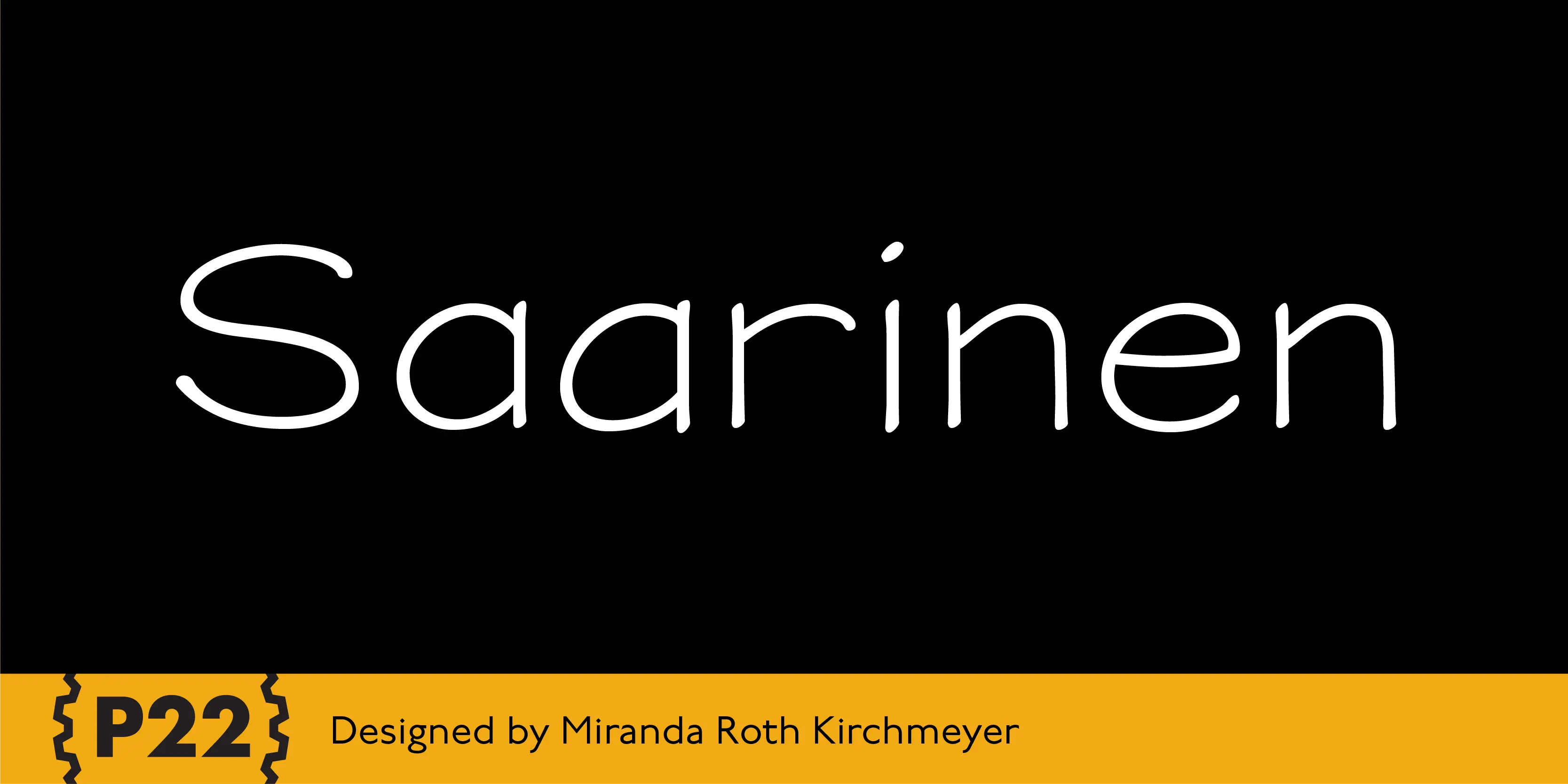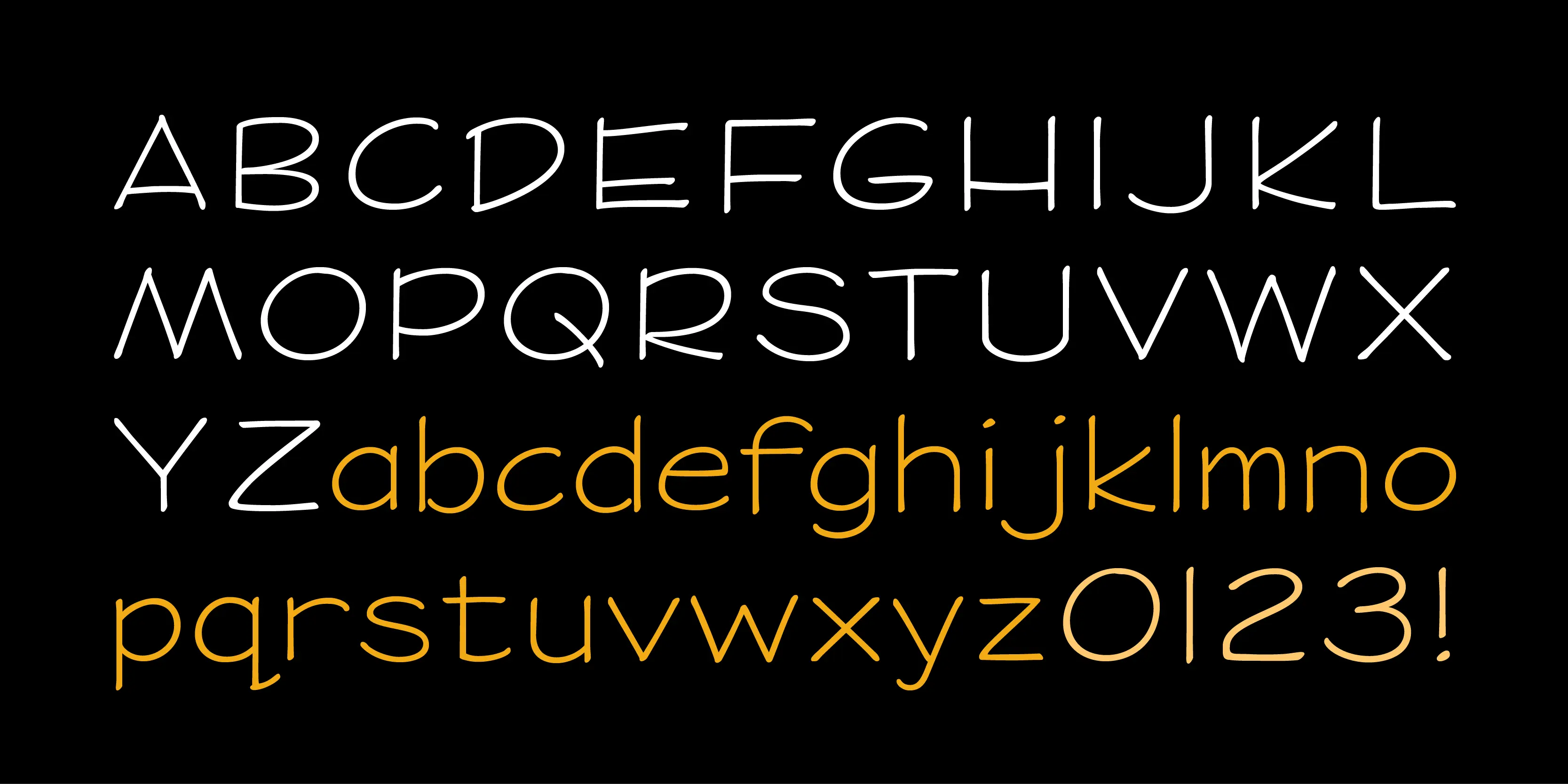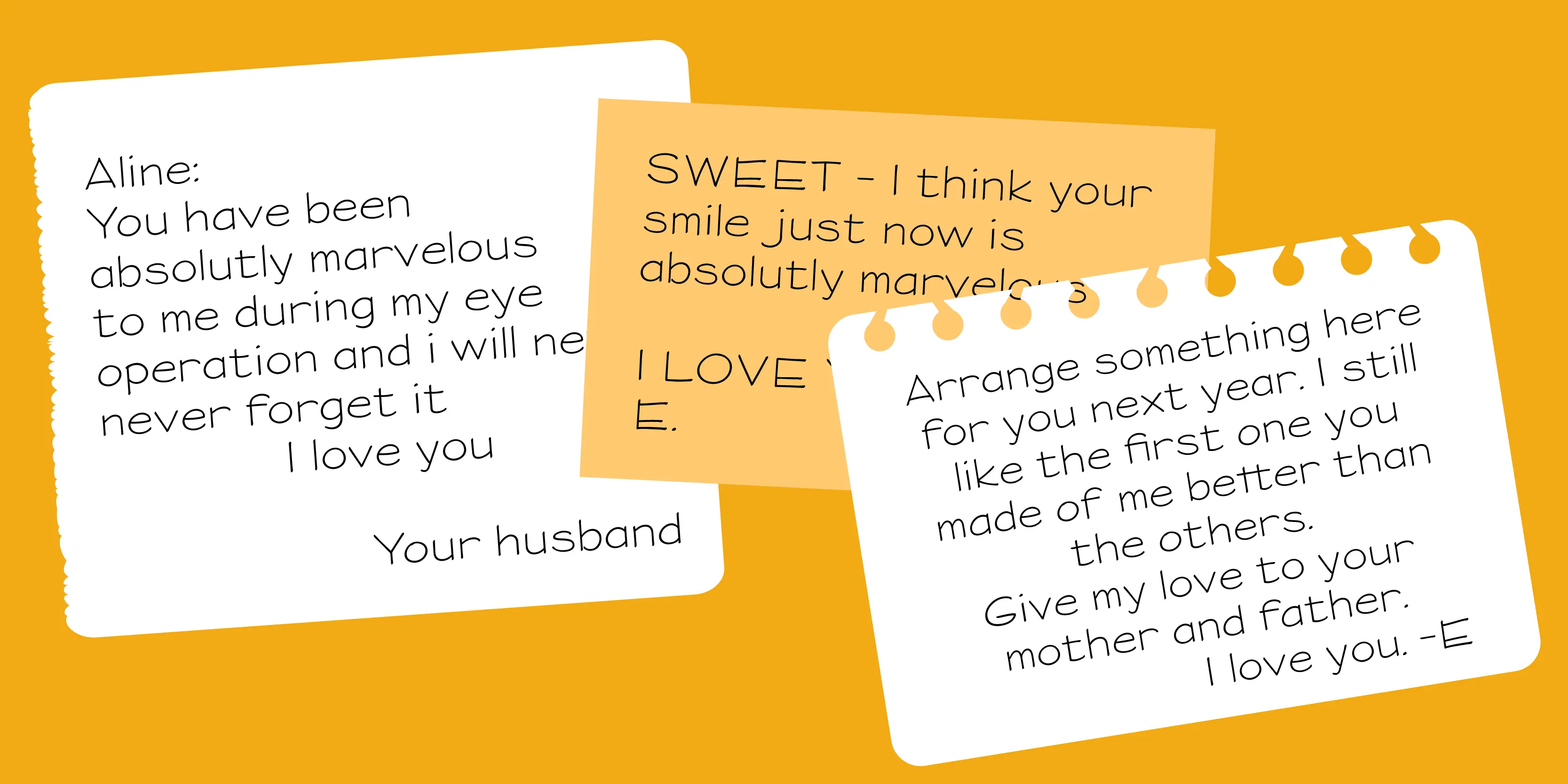
Saarinen Font Family
Saarinen
P22 Saarinen is a typeface based on the architectural lettering of Finnish American architect Eero Saarinen.The Saarinen fonts were created to help commemorate the 75th anniversary of Kleinhans Music Hall in Buffalo, NY, which was designed by Saarinen in collaboration with his father Eliel Saarinen and is recognized as one of the greatest concert halls ever built in the United States. Saarinen’s own lettering styles were combined with various lettering manual suggestion for proper lettering to create a flexible casual lettering style in regular and bold weights.
• Fractions
• Historical Ligatures
• Old Style Numerals
• Ornaments
• Small Capitals
Historical Ligatures
Contextual Alternates
Ornaments
Stylistic Set 1
Stylistic Set 2
Fractions
Oldstyle Figures
Numerators
Denominators
Small Capitals